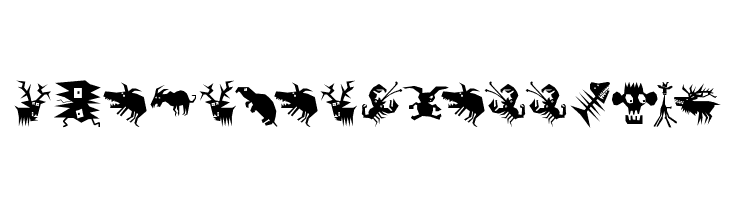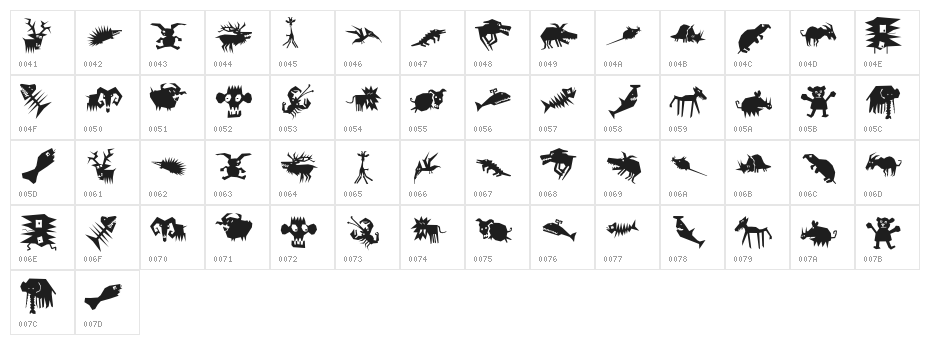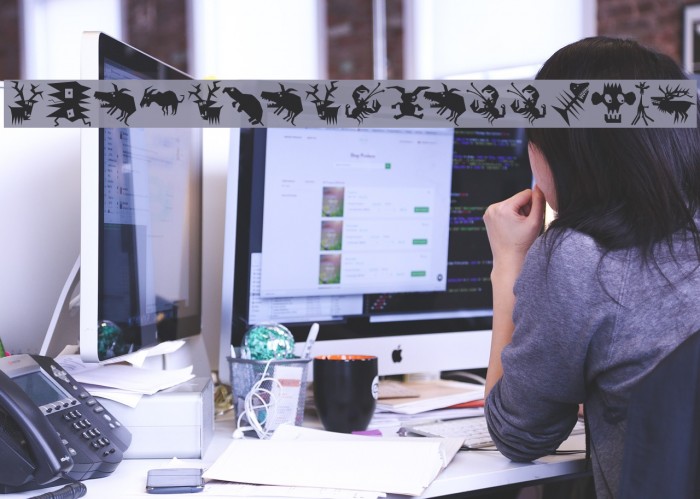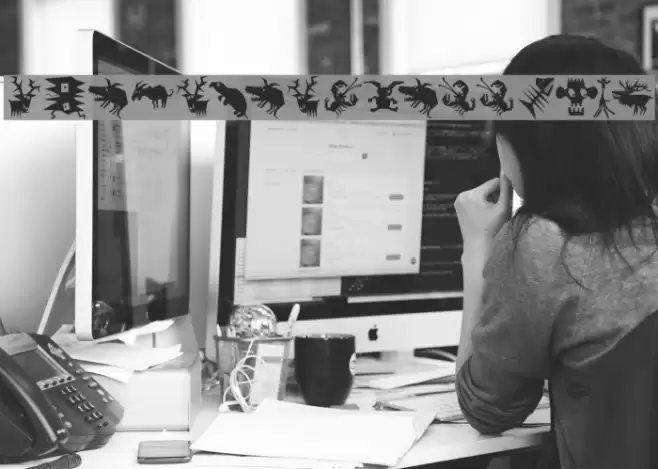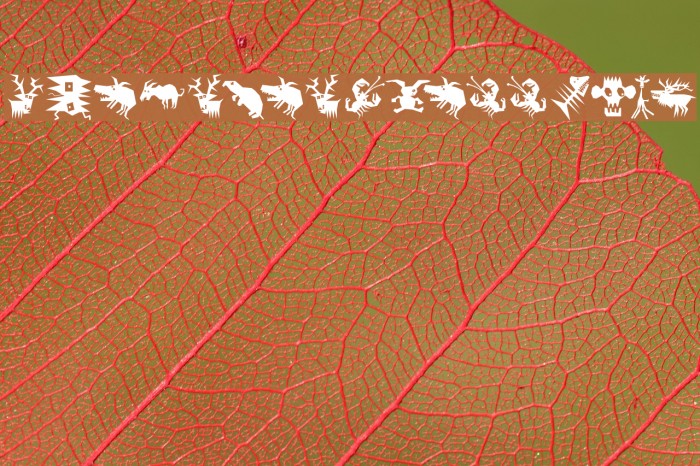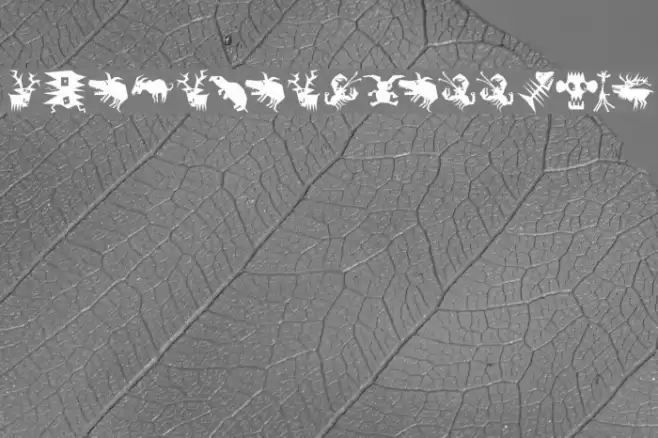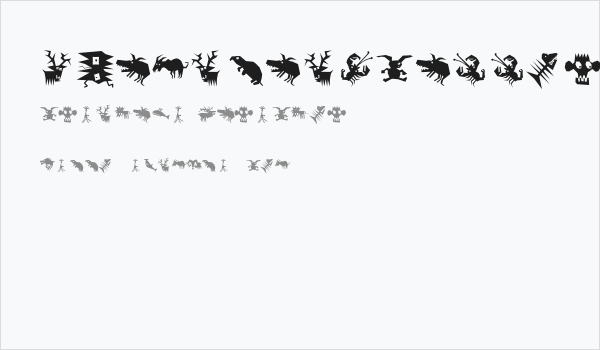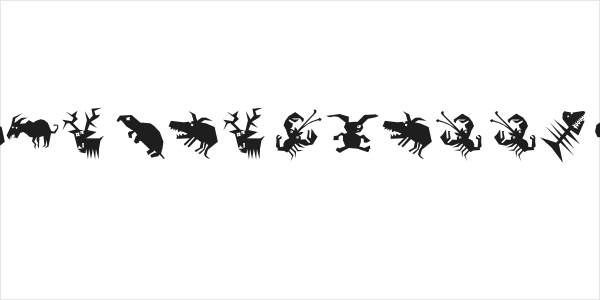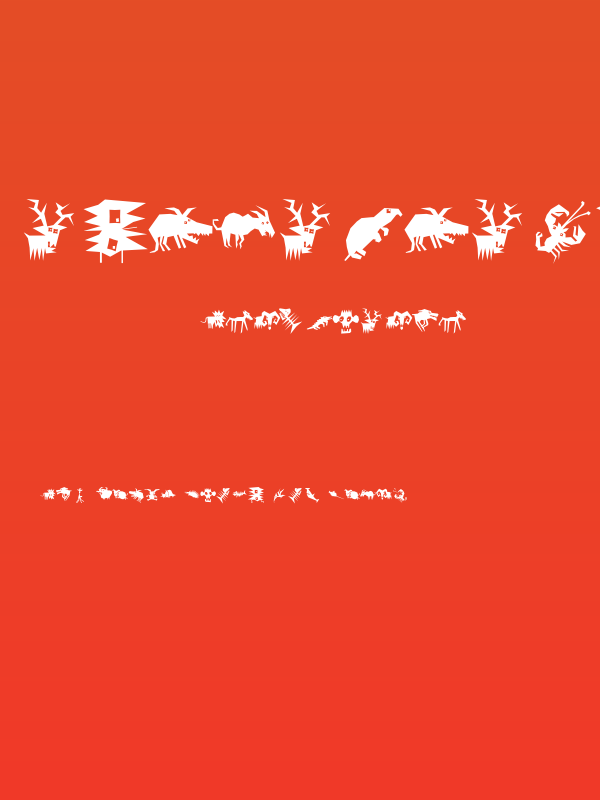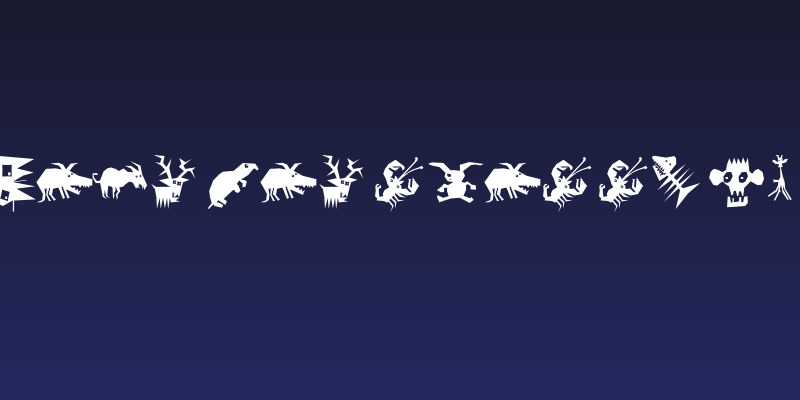
AnimaliaScissored Font
AnimaliaScissored Description
This is a highly decorative and playful font featuring characters that resemble various abstract and whimsical animal shapes. Each letter is uniquely crafted to mimic a different creature, giving the font a lively and imaginative appearance. The design is bold and striking, with sharp edges and intricate details that make each character stand out. The font's artistic style is reminiscent of paper cutouts or scissor art, adding a handcrafted and creative touch. It is perfect for projects that require a fun and quirky aesthetic, capturing attention with its unique visual appeal.
| Use Case | Logos, Posters, Creative projects |
| Proposed Projects | Ideal for children's books, playful branding, creative posters, and artistic projects requiring a unique and imaginative touch. |